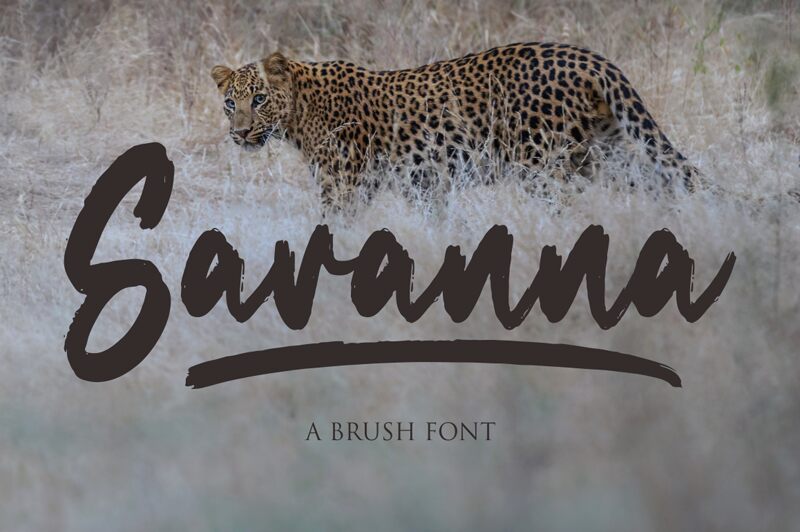
Sweeping across the digital canvas with the wild grace of its namesake, Savanna by NJ Studio is a semi-bold brush font that brings an untamed elegance to any project. Crafted with artistic precision, Savanna boasts unique ligatures and glyphs that infuse your work with a natural, flowing touch. Each stroke encapsulates the authentic texture of brushwork, making it an ideal choice for designers seeking to add a stroke of sophistication to their creations.
With its PUA-encoded features, accessing the full spectrum of Savanna's capabilities is effortless, allowing for seamless integration into various design platforms. Whether it's injecting personality into wedding blogs, elevating online shop aesthetics or adding flair to social media posts, this font has versatility at its core. Beyond the screen, it transitions beautifully into print media-think striking product labels for clothing and accessories or memorable business cards that stand out in a sea of sameness. Immerse your audience in the artistry of Savanna where each character tells a story as rich and diverse as the landscape it's inspired by.